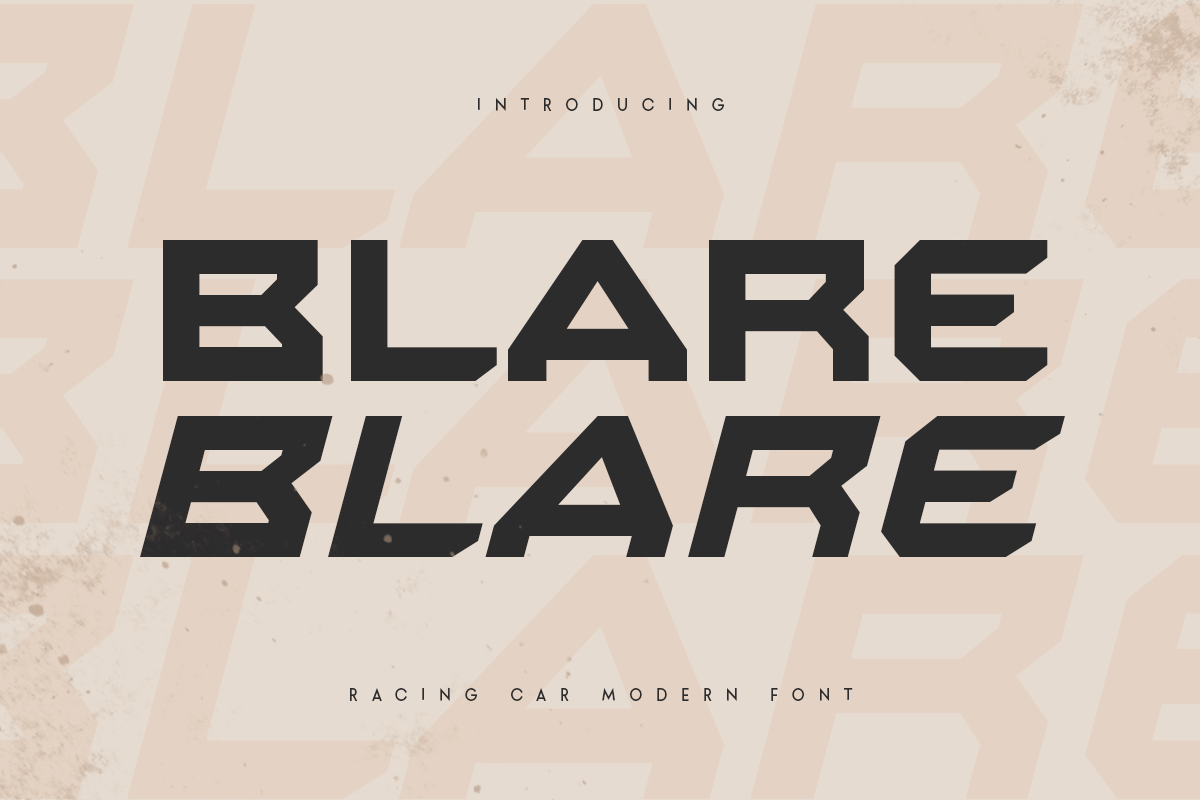
BLARE - Racing Car Modern Font
BLARE delivers explosive racing-inspired typography designed to dominate sports, technology, and action-packed projects. This modern sans serif font brings bold energy and contemporary style to your branding, titles, and standout typography needs. Perfect for sport themes, technology projects, action sequences, and fighting concepts, BLARE transforms ordinary headlines into powerful statements that capture attention and convey dynamic movement. The typeface features carefully crafted characters ...